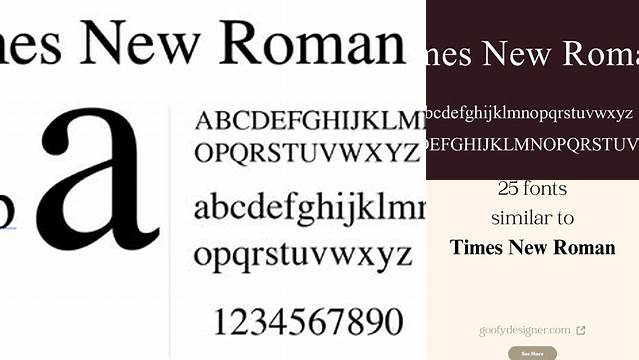
Free Fonts That Rival Times New Roman
Hey guys, let's talk about fonts! Specifically, Times New Roman, the classic, the standard, the one you probably used for every essay in school. But let's be real, sometimes you need a change, right? Maybe you want something a little more modern, a touch more stylish, or perhaps you're just looking for a free alternative. Well, you're in luck! This article is all about finding some free fonts that can rival Times New Roman without breaking the bank. We'll dive into a bunch of amazing options, exploring their characteristics and what makes them a good substitute, so you can ditch the default and still maintain readability and a professional look. Forget the font fatigue; it's time to explore the world of alternatives. We're going to uncover some real gems that can bring a fresh perspective to your documents and designs. So, buckle up, and let's embark on a font adventure!
1. The Appeal and History of Times New Roman
Times New Roman – it's the typeface that's practically synonymous with essays, reports, and just about every formal document under the sun. But why? The story of this font is super interesting, and understanding its origins is key to finding a good replacement. Designed in 1931 by Stanley Morison and Victor Lardent for The Times of London, the font was created to be incredibly readable and space-efficient in the narrow columns of a newspaper. Its design was a deliberate response to the challenges of printing. It aimed to fit more words on a page without straining the reader's eyes. Times New Roman quickly gained popularity beyond journalism because of its clear, legible design. Its serifs – the little strokes at the ends of the letters – and relatively high x-height (the height of the lowercase 'x') made it exceptionally easy to read, even at smaller sizes.
This font became a staple in the publishing world and its adoption was widespread. Its inherent neutrality helped it become a ubiquitous choice for academics, writers, and businesses. As technology evolved, so did the use of Times New Roman. When computers entered the scene, it was a default font, solidifying its status as the go-to option for everything from letters to academic papers. Its widespread use also means that people are generally comfortable with its appearance. There's a certain level of familiarity that comes with using Times New Roman, making it a safe choice for any kind of written material. It's a typeface that communicates professionalism, reliability, and clarity. But, while it's a reliable choice, the familiarity can sometimes lead to a feeling of, well, blandness. That's why it's exciting to explore free alternatives that offer the same qualities but with a little more character. This knowledge sets the stage for the options that follow, and helps us evaluate how a replacement font stacks up.
2. Understanding the Characteristics of Times New Roman
Before we jump into alternatives, let's break down what makes Times New Roman tick. Why does it work so well, and what are the key features we want to look for in a replacement? This font is a serif typeface, which means it has those small decorative strokes at the ends of the letter. This is a fundamental characteristic that defines its look and aids in readability. Those serifs, combined with the relatively high x-height, help guide the eye across the page, making it easier to read long blocks of text. The design is also characterized by its moderate contrast between thick and thin strokes. This balanced approach gives it a solid, grounded appearance. It's not overly bold or delicate, but just right. The letterforms of Times New Roman are also quite uniform, offering consistency and order to the overall aesthetic. The way it is designed allows it to be legible across a wide range of sizes, from tiny footnotes to large headlines.
One more thing is the font's neutrality. It doesn't carry strong emotional associations. It's neither too playful nor too formal. It's a reliable font that works in most contexts. When looking for free alternatives, we'll want to keep these characteristics in mind. We should look for a font with serifs, a good x-height, a balanced contrast, and a clear, legible design. We might consider alternatives that offer a modern twist on the classic serif, but still retain the core principles of readability and neutrality. The best replacement will be the one that offers the same level of usability and comfort. Understanding what makes Times New Roman effective is the first step to finding a worthy substitute. With these aspects in mind, you're well-equipped to choose an alternative that maintains the professionalism and clarity you need, while offering a touch of personal style.
3. Exploring Serif Fonts as Times New Roman Replacements
If you're aiming to find a perfect match for Times New Roman, you'll want to focus on serif fonts. Serif fonts are the closest in style and often the best for similar purposes. They’re the direct descendants of the original font, and many are designed with similar goals in mind: optimal readability. One fantastic option is EB Garamond. This font is a revival of Claude Garamont's original work from the 16th century. EB Garamond is an excellent free alternative for Times New Roman. It's known for its elegant appearance and good readability, especially in print. Its classic design offers a similar level of formality and professionalism, making it ideal for documents and reports. You can use EB Garamond for a look that’s just a touch more refined than the default. Another great choice is Garamond. Its gentle curves and slightly wider letterforms make it incredibly easy on the eyes. The overall effect is warm and inviting, without compromising on readability. It is a very solid choice when you're looking for a timeless feel. Another excellent pick is Playfair Display. While it's primarily designed for headlines, it can be used for body text, especially in headings. It's a stylish serif font with a high contrast between thick and thin strokes, giving it a more sophisticated vibe.
Another option is Lora. This is a well-balanced font that combines a modern look with a traditional feel. Its moderate contrast and slightly rounded serifs make it easy to read on screen and in print. Lora is designed to be versatile. It's a suitable choice for a wide range of applications, from body text to headlines, and it will bring a contemporary touch to your documents without straying too far from the classic serif aesthetic. Exploring the world of serif fonts gives you access to plenty of choices that not only replicate the look and feel of Times New Roman but also offer variations. You can match the feel and characteristics you are looking for in a font. This allows you to give your projects a personalized touch.
4. Open Sans: A Versatile Sans-Serif Alternative
Okay, so you're not feeling the serifs, huh? No problem! Let's explore a great free alternative that falls into the sans-serif category: Open Sans. This font is known for its clean and friendly appearance. Its design emphasizes readability, making it ideal for both print and digital media. It's a popular choice for websites and applications because of its clarity. It is designed with open shapes and a generous x-height, which helps with the legibility on screens. That's because it's optimized for clear viewing. One of the best things about Open Sans is its versatility. It's a fantastic choice for a wide range of projects, from body text to headings. It will fit well in business documents. The neutral nature of this font makes it an excellent choice for any type of written content.
Open Sans is also an excellent font for international use. It supports a wide range of characters and is available in various weights and styles. This versatility makes it suitable for multilingual projects. It also comes in a variety of weights, from light to bold, so you can adapt the font to your exact needs. Another benefit is that it’s incredibly easy to read at smaller sizes. Whether it's for body text or a small caption, Open Sans ensures that your message is clear. Its straightforward design and excellent legibility offer a fresh take on the more traditional feel of Times New Roman. If you're looking for a free alternative that is readable and stylish, Open Sans is definitely worth a look. The font’s combination of clean lines and modern design will give a modern touch to your content, all while being easy on the eyes. Its versatility and readability make it a great choice for a wide range of applications.
5. Comparing Font Weights and Styles
When comparing Times New Roman to its free alternatives, it's important to consider the various font weights and styles. This is where you fine-tune the look and feel to match your specific needs. Times New Roman typically comes in regular, italic, bold, and bold italic. These different variations allow you to emphasize text. Many of the free alternatives offer a similar range, but it's a good idea to check. A font that offers multiple weights provides the flexibility to create visual hierarchy in your documents. For example, you might use a bold weight for headings, a regular weight for body text, and an italic weight for emphasis or quotations. Different weights can also affect readability. A font that offers a wide range of weights allows you to find the perfect look for any scenario.